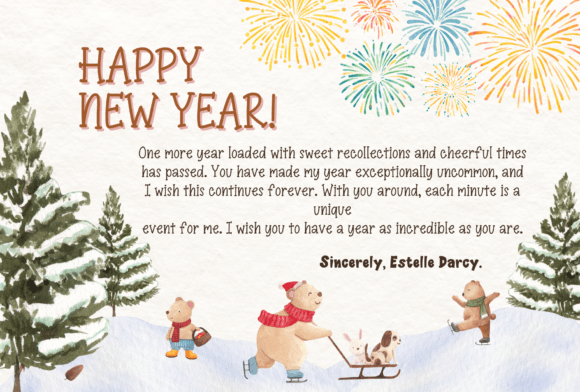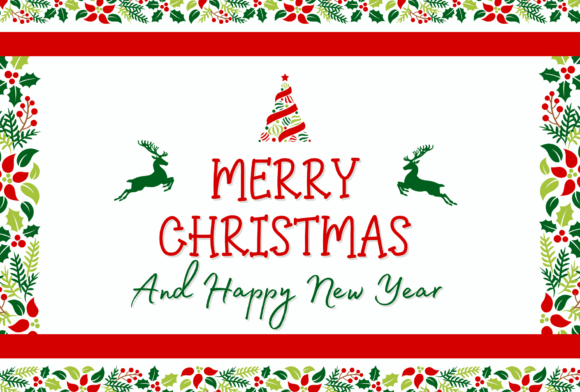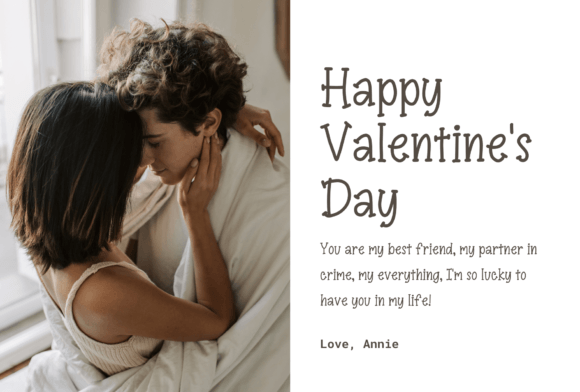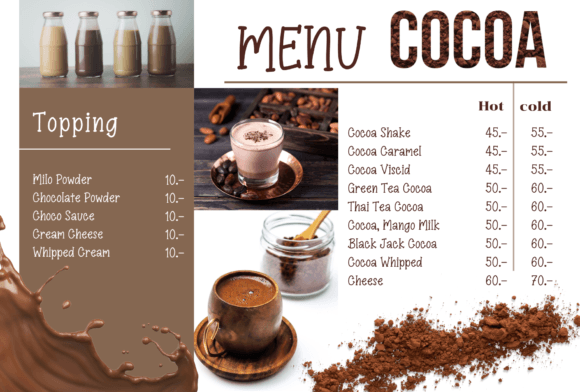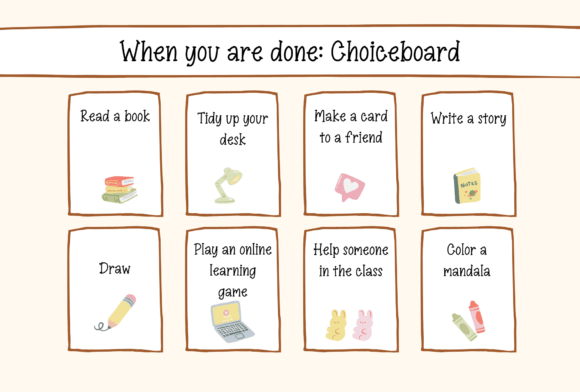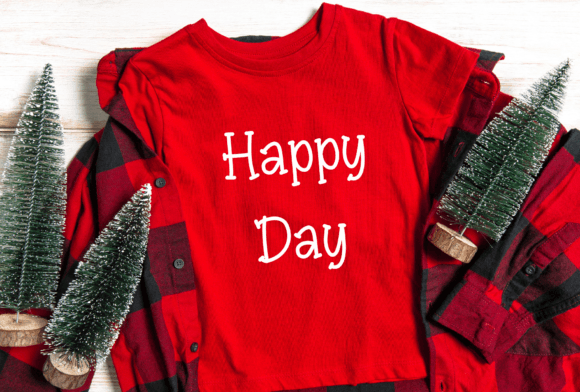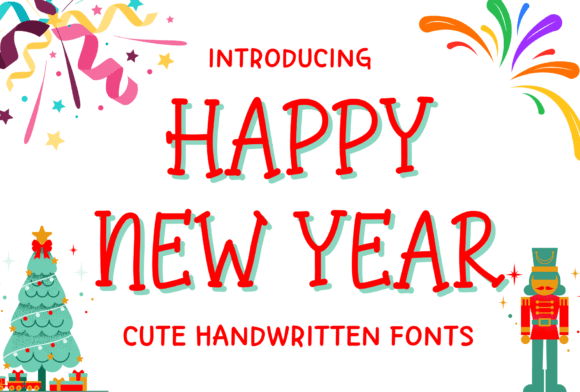
Happy New Year Font: Add a Touch of Cuteness to Your Celebrations
As the clock strikes midnight on New Year’s Eve, the world welcomes a fresh start with open arms. What better way to express your excitement and cheer than with a font that’s as adorable as it is festive? Introducing the Happy New Year Font, a playful handwritten style that’s perfect for adding a touch of cuteness to your projects.
The Charm of Happy New Year Font
Happy New Year Font is a simple yet charming design that’s sure to bring a smile to anyone’s face. Its handwritten style gives off a friendly and approachable vibe, making it ideal for creating cheerful and festive messages for the New Year. Whether you’re a designer, crafter, or social media enthusiast, this font is sure to become your go-to choice for all your New Year’s projects.
Perfect for Various Projects
One of the best things about Happy New Year Font is its versatility. You can use it to create a wide range of projects, from:
• Cards: Design beautiful greeting cards for your loved ones, complete with personalized messages and decorations.
• Banners: Create eye-catching banners for parties, events, or social media posts that are sure to grab attention.
• Social Media Posts: Add a touch of festivity to your Instagram, Facebook, or Twitter posts with Happy New Year Font.
• DIY Crafts: Use this font to add a personal touch to your DIY crafts, such as scrapbooking, journaling, or paper crafting.
Why Choose Happy New Year Font?
So, what makes Happy New Year Font so special? Here are just a few reasons why designers and crafters love this font:
• Easy to Read: Happy New Year Font is clear and easy to read, making it perfect for both digital and print projects.
• Customizable: You can adjust the font size, color, and style to fit your project’s needs.
• Unique and Playful: This font has a unique and playful personality that sets it apart from more traditional fonts.
Tips for Using Happy New Year Font
Now that you know why Happy New Year Font is so awesome, here are some tips for using it in your projects:
• Pair it with Other Fonts: Combine Happy New Year Font with other fonts to create a unique and interesting contrast.
• Add Decorations: Use graphics, illustrations, or other decorations to enhance your text and make it more visually appealing.
• Experiment with Colors: Try out different colors and color combinations to find the perfect match for your project.
• Keep it Simple: Don’t be afraid to keep things simple and elegant – Happy New Year Font shines on its own.
Happy New Year Font is a delightful and friendly font that’s perfect for adding a touch of cuteness to your New Year’s projects. With its simple and charming design, this font is sure to bring joy and warmth to your cards, banners, social media posts, and more. So why wait? Download Happy New Year Font today and start creating your own cheerful and festive messages!